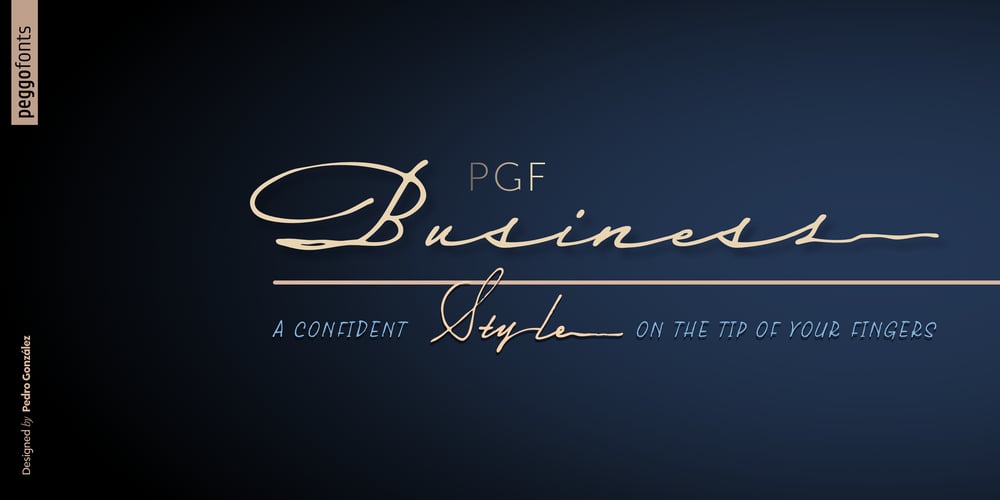
PGF Business Font Family was designed by Pedro González and published by PeGGO Fonts. PGF Business contains 8 styles and family package options. PGF Business inspired by script used on maps, spencerian aka “Business Script” and manual and confident signature strokes. Organized in 5 individual styles, for making it easier to use, and gathered all at one in a bigger unique file called “PGF Bussiness Full” where you will find way much more options, but requires a more advance editing skill to use. Accompained with a useful set of Dingbats and a set of complementary Ornaments to enhance more versatile typographic compositions.